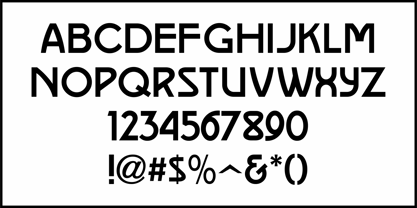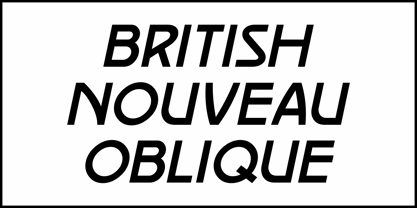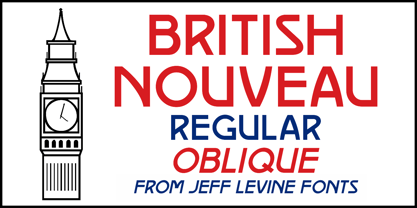
British Nouveau JNL
by Jeff Levine
A pleasant Art Nouveau sans serif type design called "Bohemian" was offered by the British type foundry Miller and Richard (circa 1921).
This design served as the model for British Nouveau JNL, which is available in both regular and oblique versions.